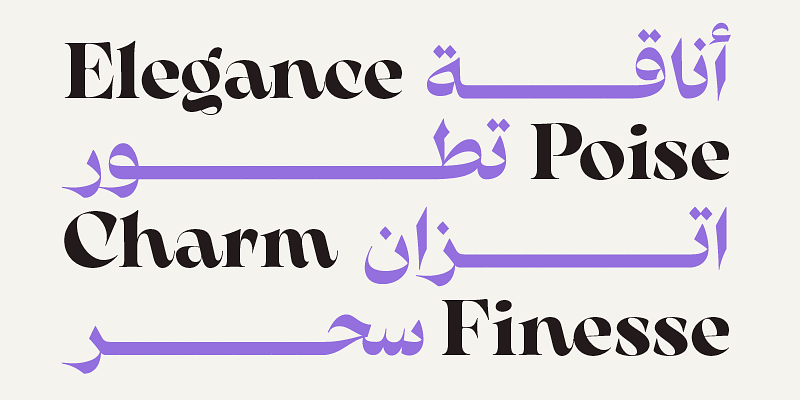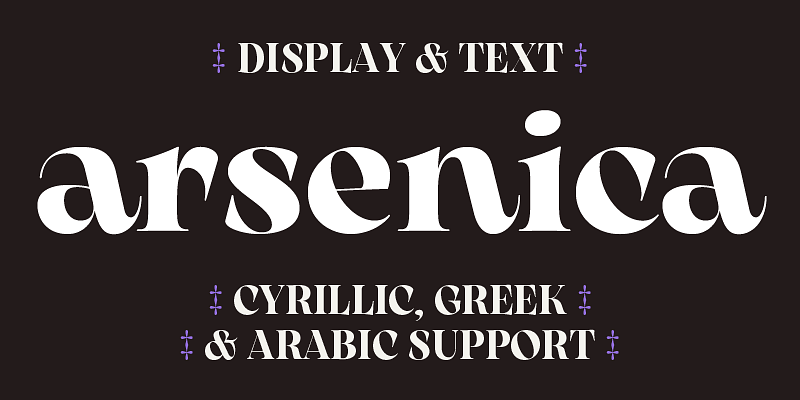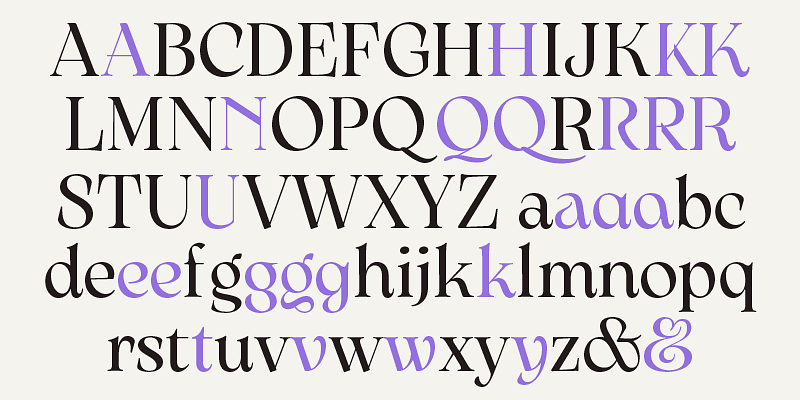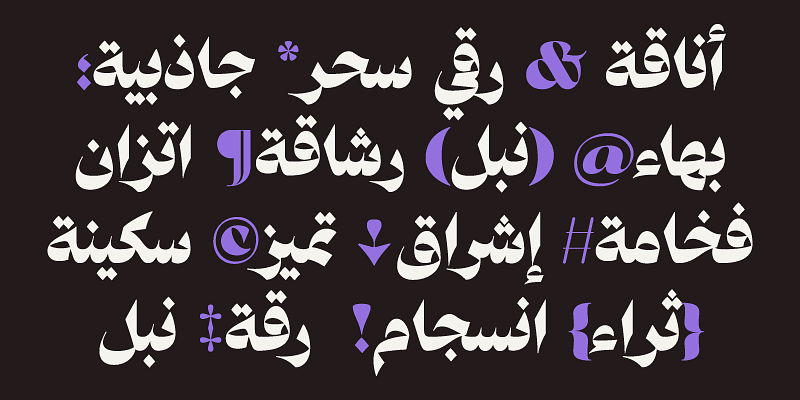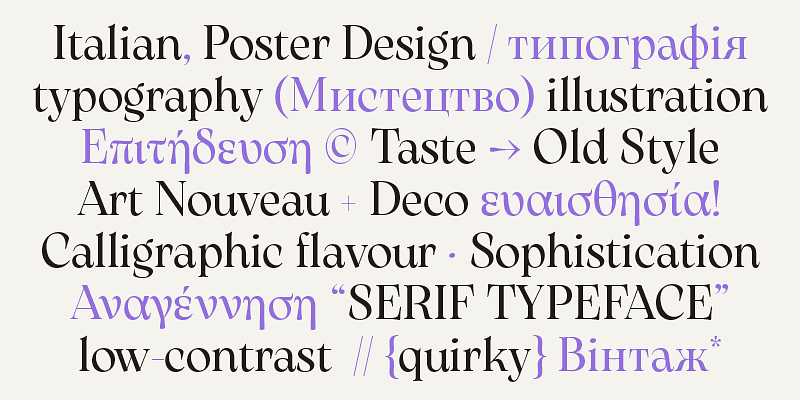
Arsenica is a serif type family drawing on early-20th-century Italian poster design, a moment when typography, lettering and illustration were closely intertwined, and traditional Old Style letterforms absorbed Art Nouveau and Deco sensibilities. The design balances vintage-inspired stylistic inventions with contemporary details, making it equally suited to branding, editorial work and poster-scale titling. It covers over 200 languages across Latin, Greek and Cyrillic, and features an Arabic glyph set which reinterprets the same eclectic tension between tradition and modernity through the Naskh script, resulting in a coherent multiscript system for cross-cultural visual communication.